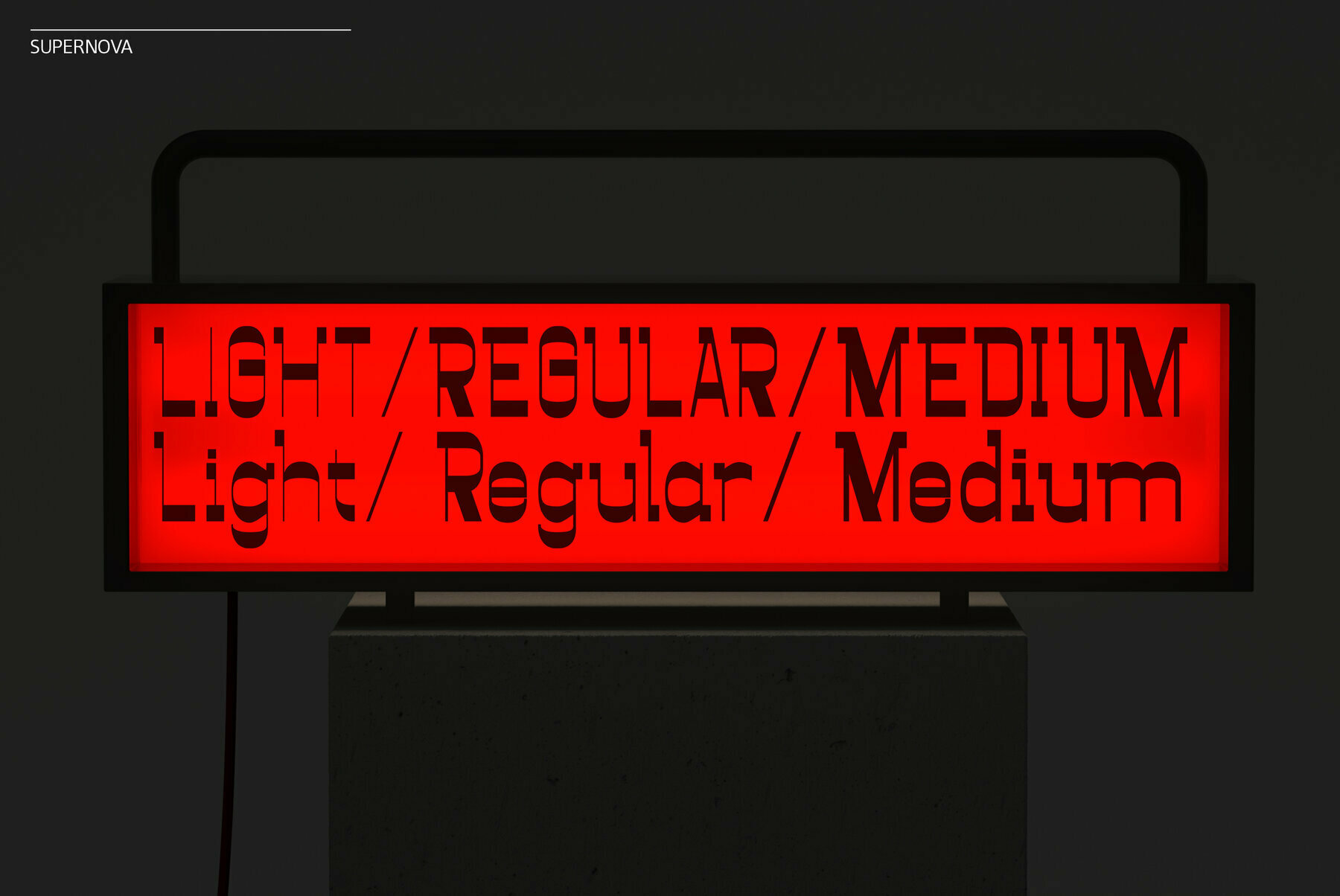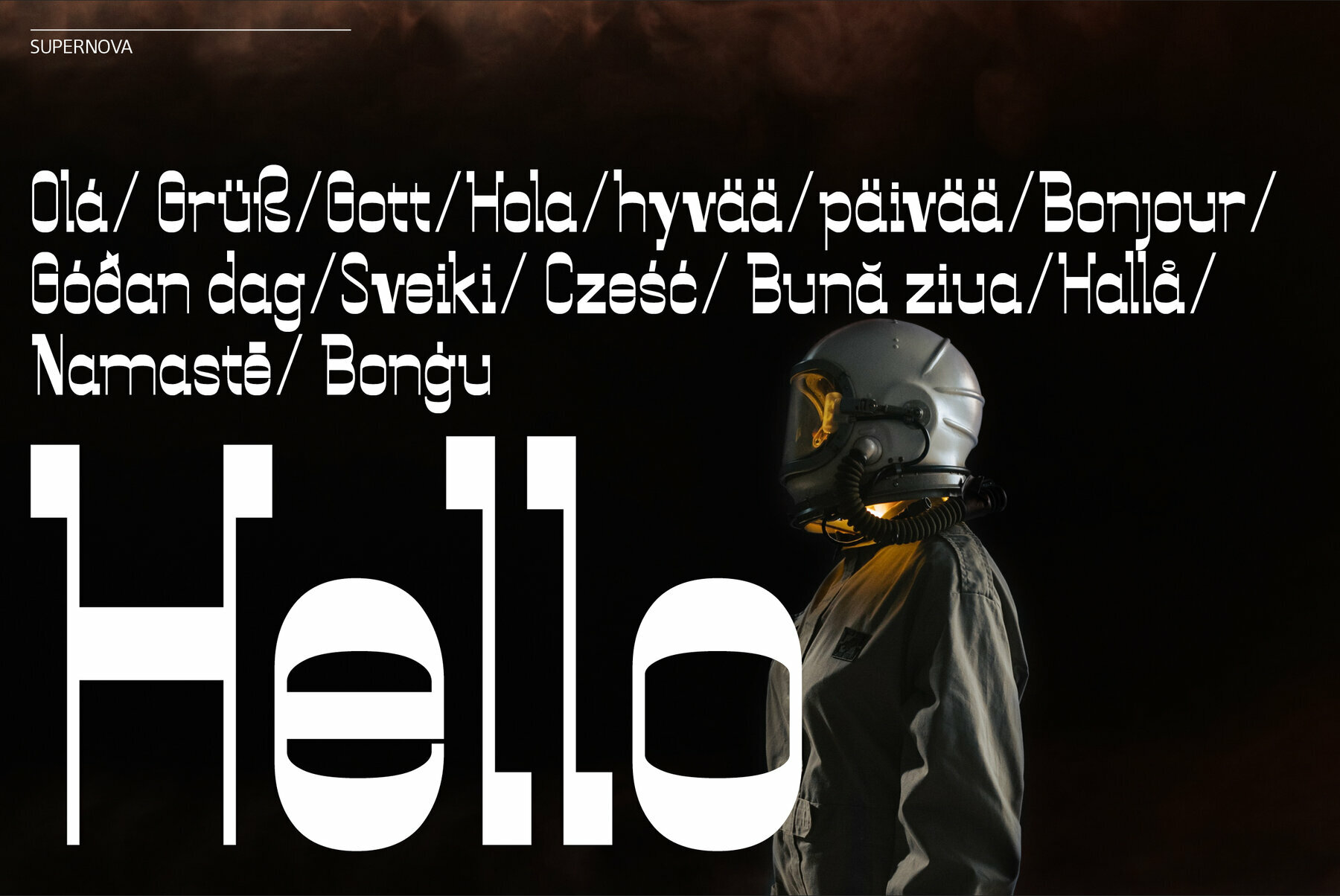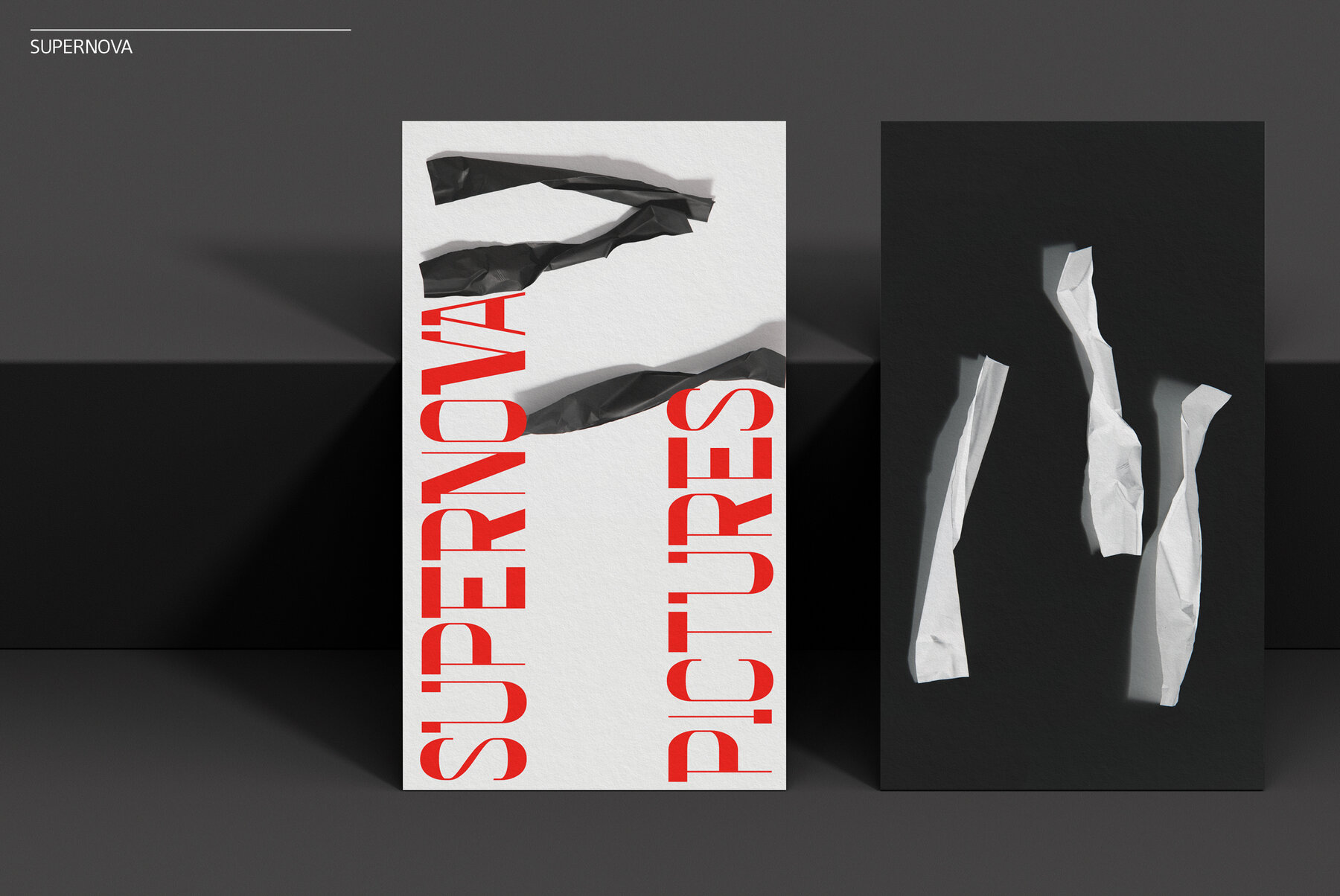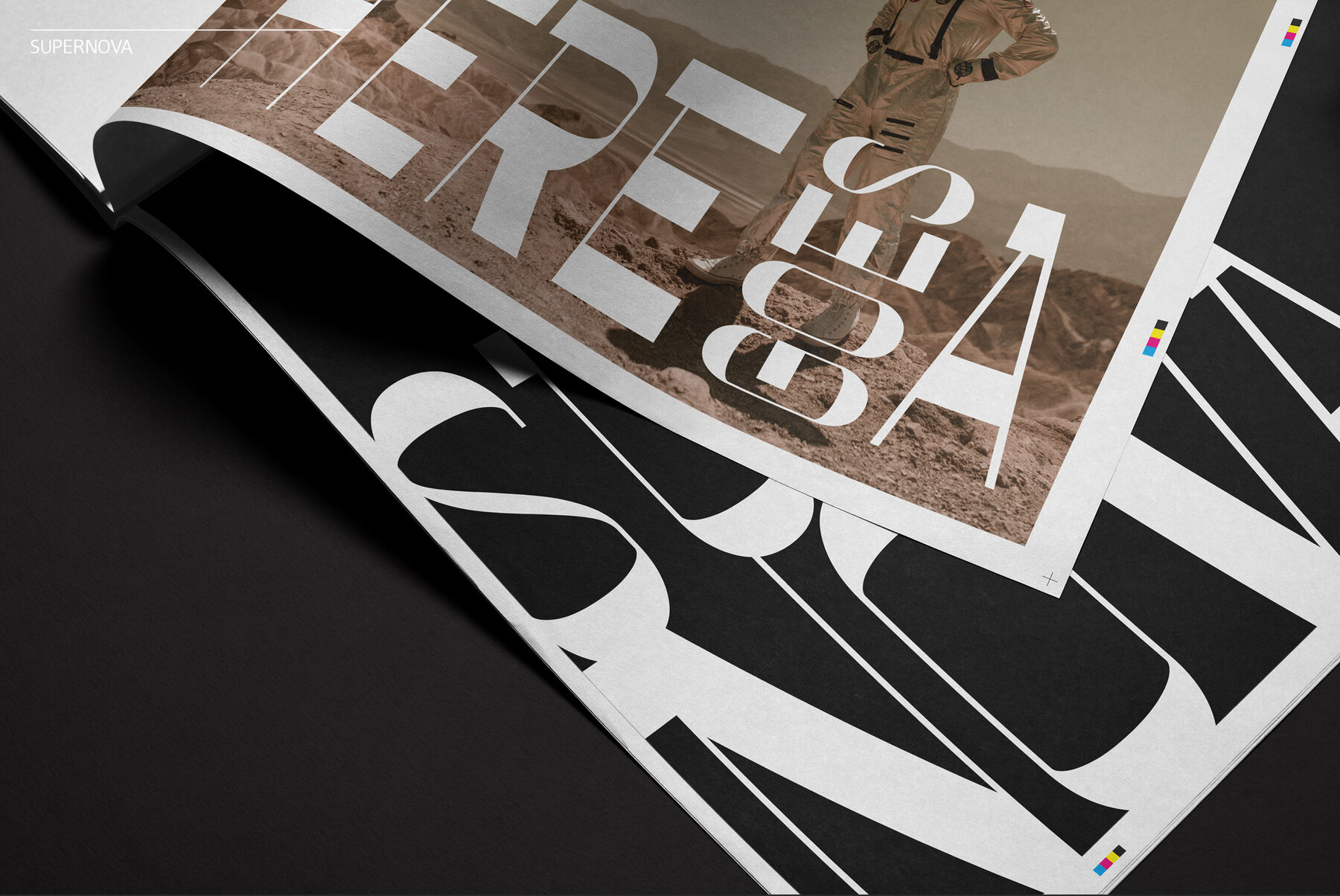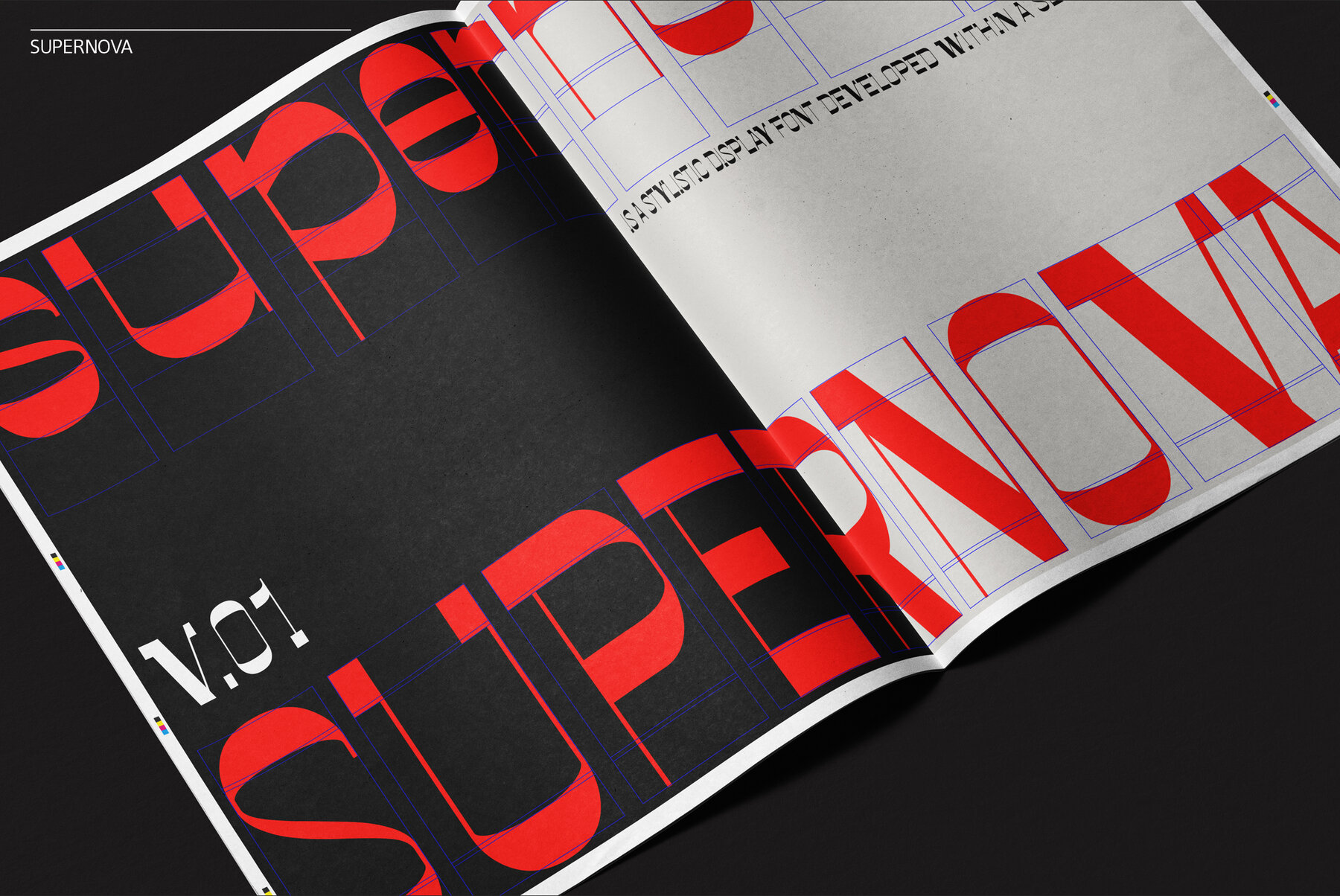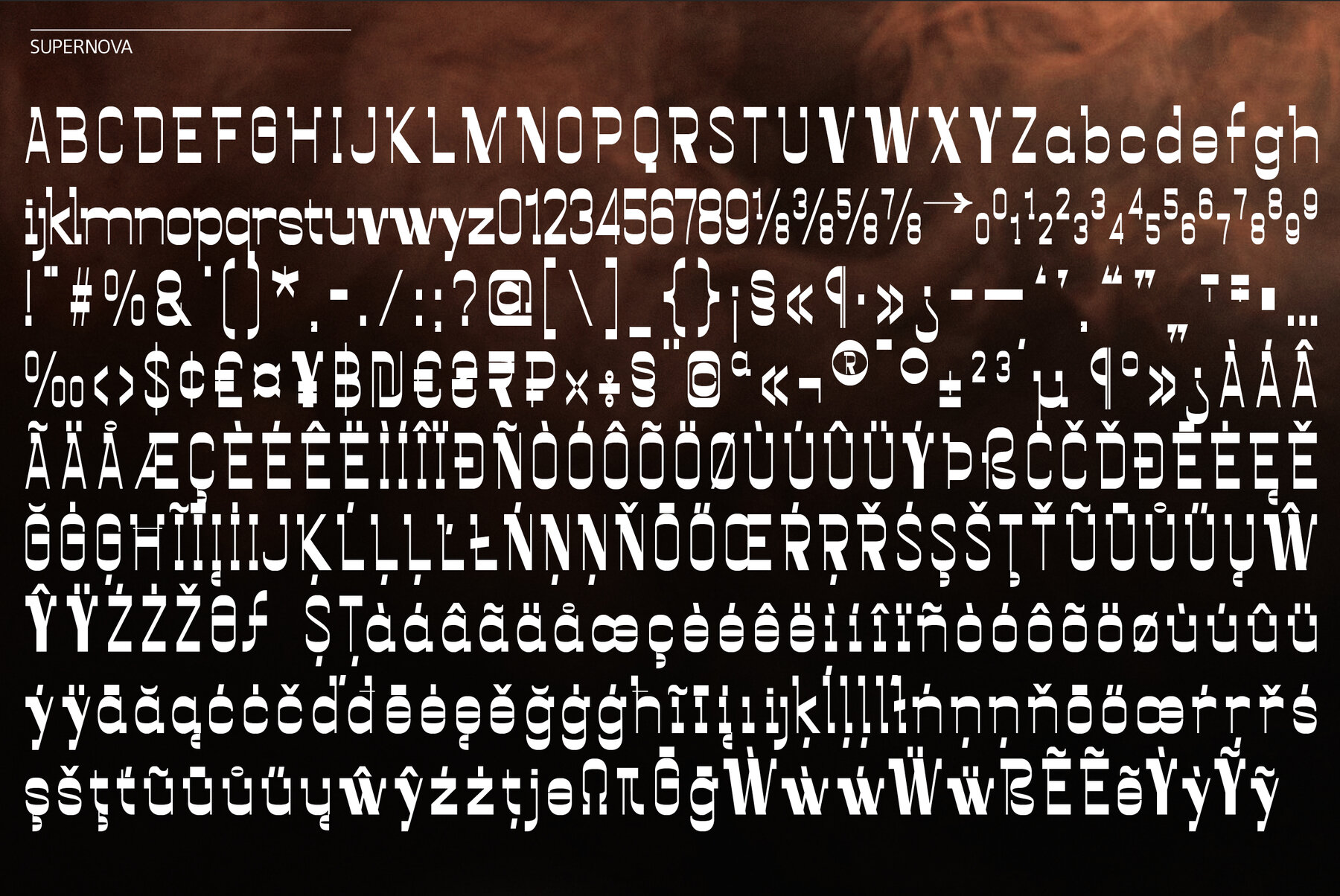
Sf Supernova Font
Sf Supernova Light
Sf Supernova Regular
Sf Supernova Medium
Supernova is a stylistic display font developed within a set grid. Perfectly suited for headlines, large-format prints, brand identities, social media, advertising, editorial design, posters, magazines, logos, headings, digital and more.